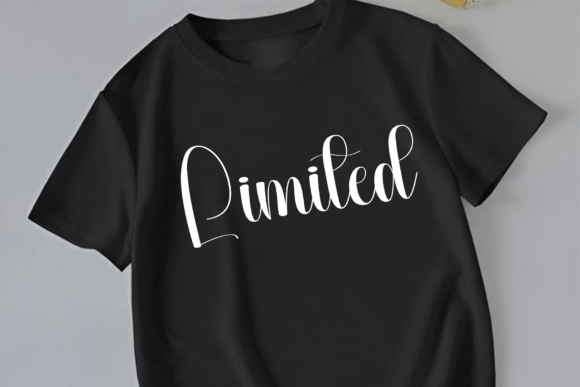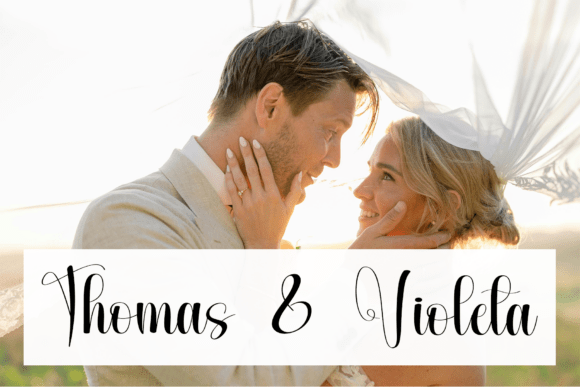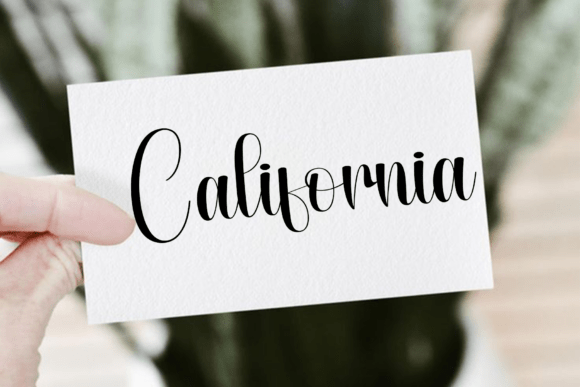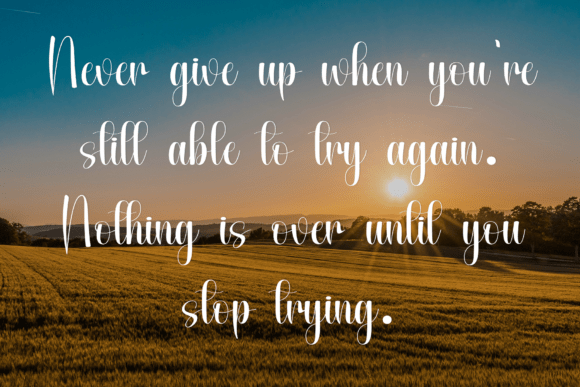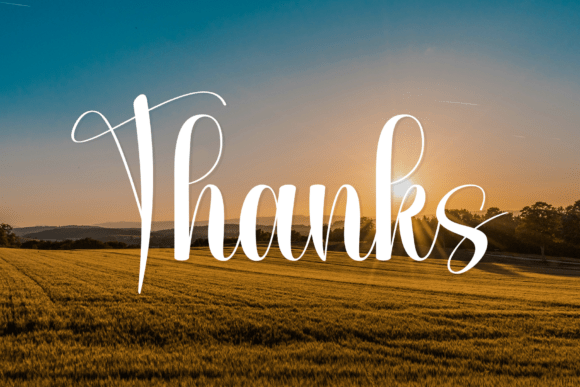
Introducing Country Font: Elevate Your Designs with Elegance and Sophistication
In the world of typography, a well-crafted font can make all the difference in elevating your designs from ordinary to extraordinary. If you’re a designer or crafter looking for a typeface that exudes luxury, sophistication, and modern elegance, look no further than Country Font. This beautiful, handwritten script font is perfect for a variety of applications, including luxury wedding stationery, intimate event branding, high-end editorial signatures, and sophisticated lifestyle photography overlays.
The Essence of Country Font
Country Font is an elegant and fluid handwritten script font that captures the essence of a modern, sophisticated typeface. Its flowing lines, delicate curves, and precise letterforms create a sense of refinement and poise, making it ideal for designs that require a touch of luxury and glamour. Whether you’re creating wedding invitations, branding materials, or editorial content, Country Font is sure to impress.
Perfect for Luxury Wedding Stationery
When it comes to wedding stationery, the font used can set the tone for the entire event. Country Font is a perfect choice for luxury wedding stationery, as its elegant and sophisticated design evokes a sense of romance and refinement. From wedding invitations and save-the-date cards to ceremony programs and thank-you notes, Country Font adds a touch of glamour and sophistication to any wedding stationery.
Intimate Event Branding
Country Font is not just limited to wedding stationery; it’s also perfect for intimate event branding, such as baby showers, bridal showers, and anniversaries. Its elegant design and fluid lines create a sense of warmth and sophistication, making it ideal for events that require a personal touch. Whether you’re creating custom invitations, signage, or promotional materials, Country Font is sure to make your event stand out.
High-End Editorial Signatures
For editorial designers and writers, a signature font can add a touch of personality and sophistication to their work. Country Font is perfect for high-end editorial signatures, as its elegant design and precise letterforms create a sense of refinement and poise. Whether you’re creating a magazine, blog, or book, Country Font is sure to elevate your content and add a touch of luxury.
Sophisticated Lifestyle Photography Overlays
Country Font is not just limited to print design; it’s also perfect for lifestyle photography overlays. Its elegant design and fluid lines create a sense of sophistication and refinement, making it ideal for adding text to lifestyle photos, such as quotes, captions, or titles. Whether you’re creating social media content, blog posts, or advertising materials, Country Font is sure to add a touch of glamour and sophistication to your photography.
Why Choose Country Font?
So, why choose Country Font over other fonts? Here are just a few reasons:
- Elegant and sophisticated design: Country Font’s elegant design and fluid lines create a sense of refinement and poise, making it perfect for luxury designs.
- Versatile: Country Font is perfect for a variety of applications, including wedding stationery, event branding, editorial content, and lifestyle photography overlays.
- Easy to read: Country Font’s precise letterforms and flowing lines make it easy to read, even at small sizes.
- Unique: Country Font’s unique design sets it apart from other fonts, making it perfect for designers and crafters who want to create something truly special.
In conclusion, Country Font is a beautiful, elegant, and sophisticated handwritten script font that’s perfect for designers and crafters who want to create luxury designs. Its flowing lines, delicate curves, and precise letterforms create a sense of refinement and poise, making it ideal for a variety of applications, including luxury wedding stationery, intimate event branding, high-end editorial signatures, and sophisticated lifestyle photography overlays. Whether you’re a designer or crafter, Country Font is sure to elevate your designs and add a touch of glamour and sophistication.